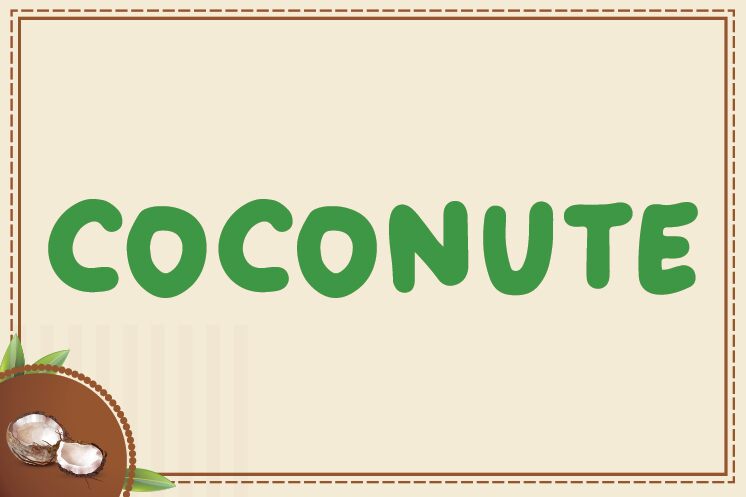
Coconute, a bold and cartoon-style font designed by Lady Hanna, is perfect for projects needing a fancy flair. Use it for logos, titles, posters, or any design that needs a unique touch.